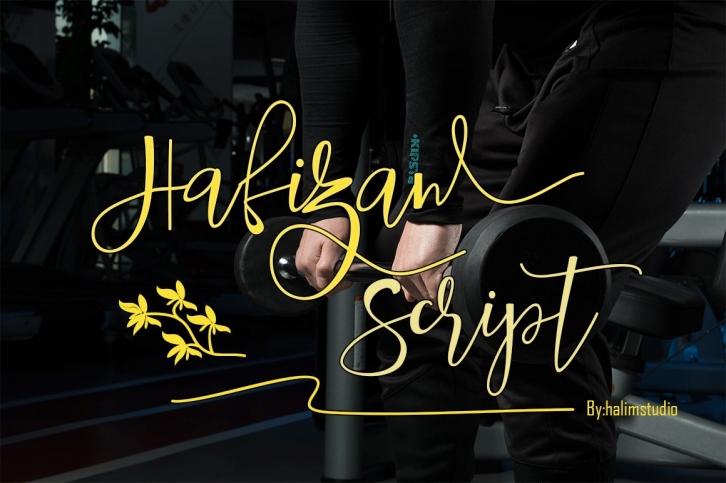
Hafizan script is a gorgeous font that was realeased on September 7, 2020. The font can be used in many style contexts and design environments. Perfect for invitations, magazines, websites, logos, and more! It was designed by Letter-P and the file size is 6.53 MB. Thanks for checking out this font!